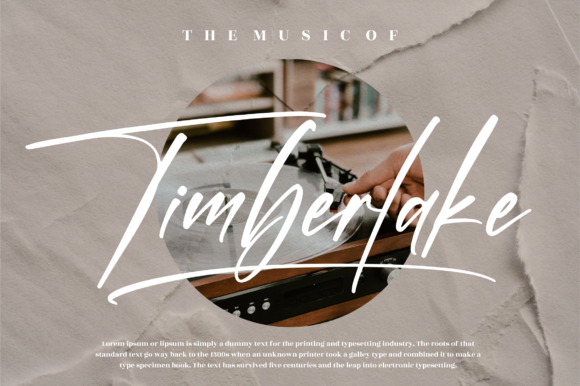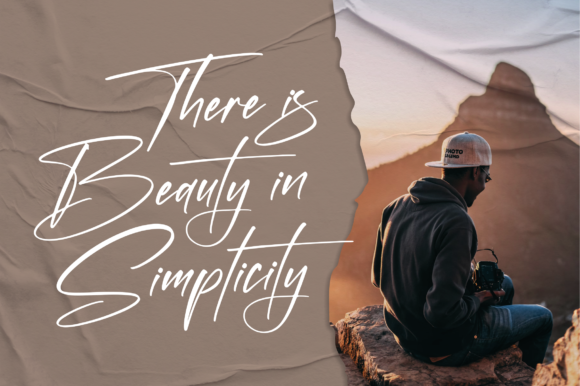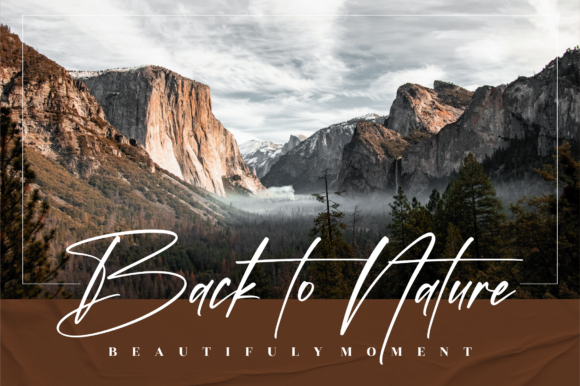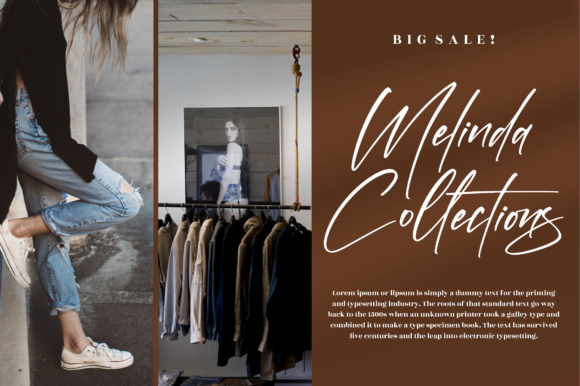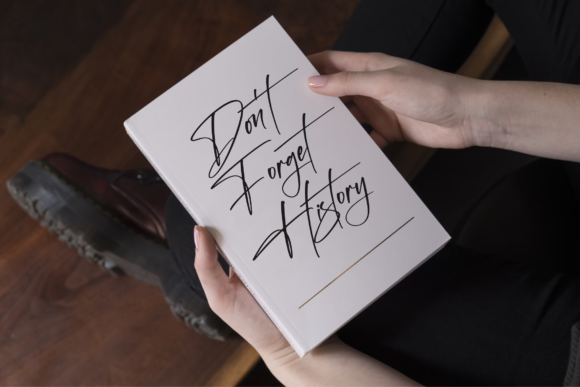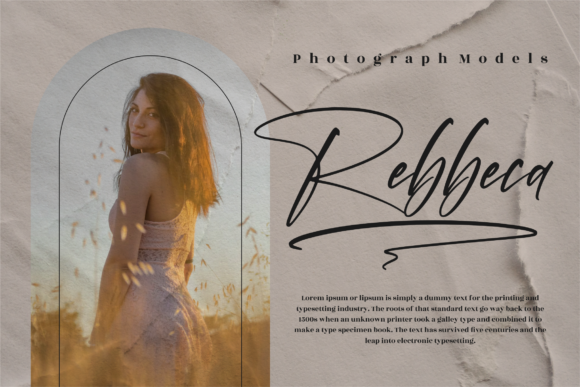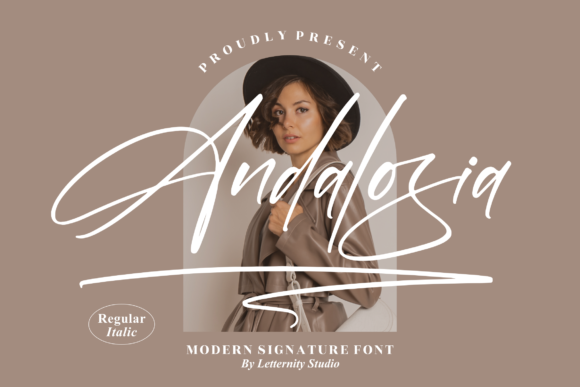
Introducing Andalosia Font: Elevate Your Designs with Elegant Script
Are you a designer or crafter looking for a beautiful script font to elevate your projects? Look no further than Andalosia Font. This stunning script font is perfect for a wide range of applications, from logos and branding projects to homeware designs, product packaging, and more.
What is Andalosia Font?
Andalosia Font is a beautiful script font designed to add a touch of elegance and sophistication to any project. Its flowing lines and cursive style make it perfect for creating beautiful and eye-catching designs. Whether you’re working on a logo, brochure, or social media graphics, Andalosia Font is sure to impress.
Uses for Andalosia Font
Andalosia Font is incredibly versatile and can be used for a wide range of projects, including:
- Logos and branding projects: Create a lasting impression with a custom logo or branding materials that showcase your unique style.
- Homeware designs: Add a touch of elegance to your home decor with Andalosia Font on throw pillows, blankets, and more.
- Product packaging: Stand out on store shelves with beautifully designed packaging that features Andalosia Font.
- Mugs and ceramics: Create personalized gifts or promotional items with Andalosia Font on mugs, plates, and more.
- Quotes and posters: Create inspiring quotes and posters that showcase your favorite sayings or lyrics.
- Shopping bags: Add a touch of luxury to your shopping bags with Andalosia Font.
- T-shirts and apparel: Create custom t-shirts, hoodies, and more with Andalosia Font.
- Book covers and journals: Create beautiful book covers and journals that showcase your unique style.
- Name cards and invitation cards: Create elegant name cards and invitation cards for special events.
- Greeting cards and labels: Add a personal touch to your greeting cards and labels with Andalosia Font.
- Photography and watermark: Use Andalosia Font as a watermark for your photos or add it to your photography prints.
Why Choose Andalosia Font?
So why choose Andalosia Font for your next project? Here are just a few reasons:
- Elegant and sophisticated: Andalosia Font has a timeless elegance that will elevate any project.
- Versatile: Andalosia Font can be used for a wide range of projects, from logos and branding to homeware and apparel.
- Easy to read: Despite its elegant style, Andalosia Font is easy to read and understand.
- Unique: Andalosia Font has a unique style that will set your project apart from the rest.
Tips for Using Andalosia Font
Here are a few tips for getting the most out of Andalosia Font:
- Use it sparingly: Andalosia Font is best used sparingly to add a touch of elegance to your project.
- Pair it with other fonts: Experiment with pairing Andalosia Font with other fonts to create a unique and interesting look.
- Adjust the size and color: Play around with different sizes and colors to find the perfect combination for your project.